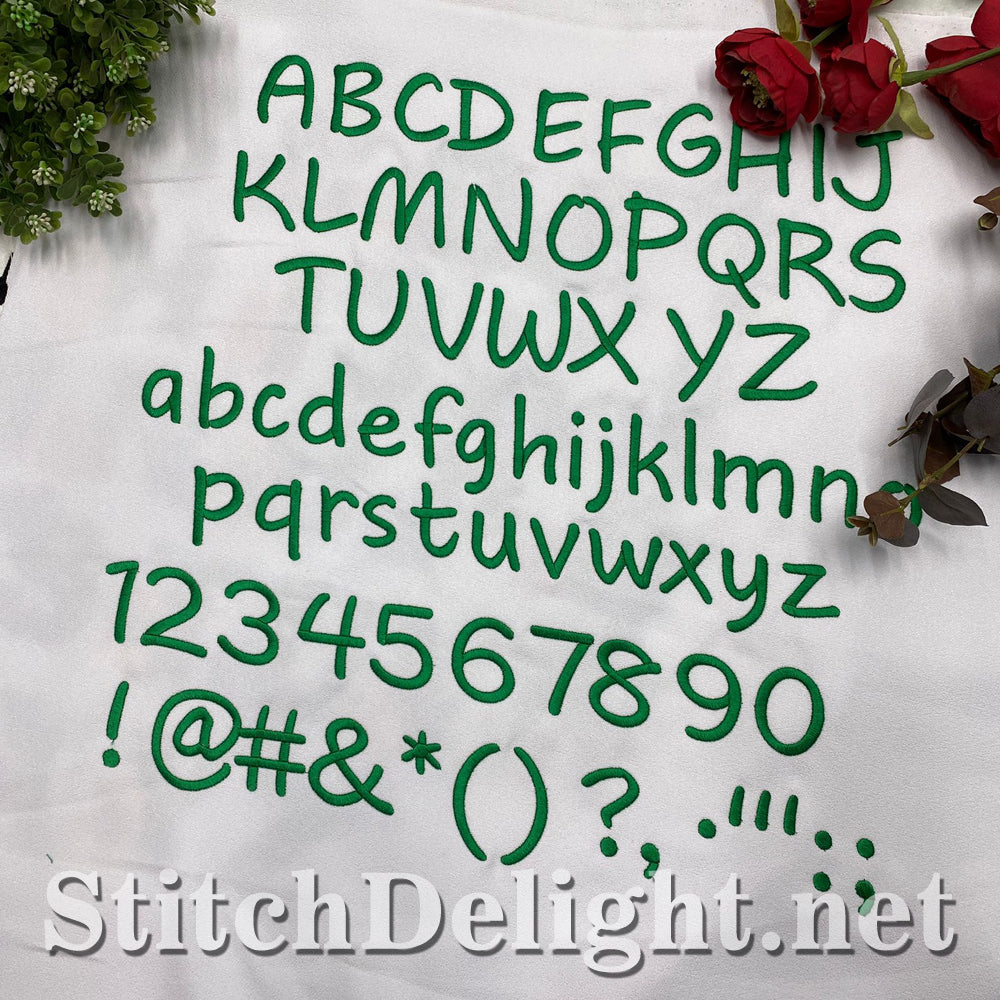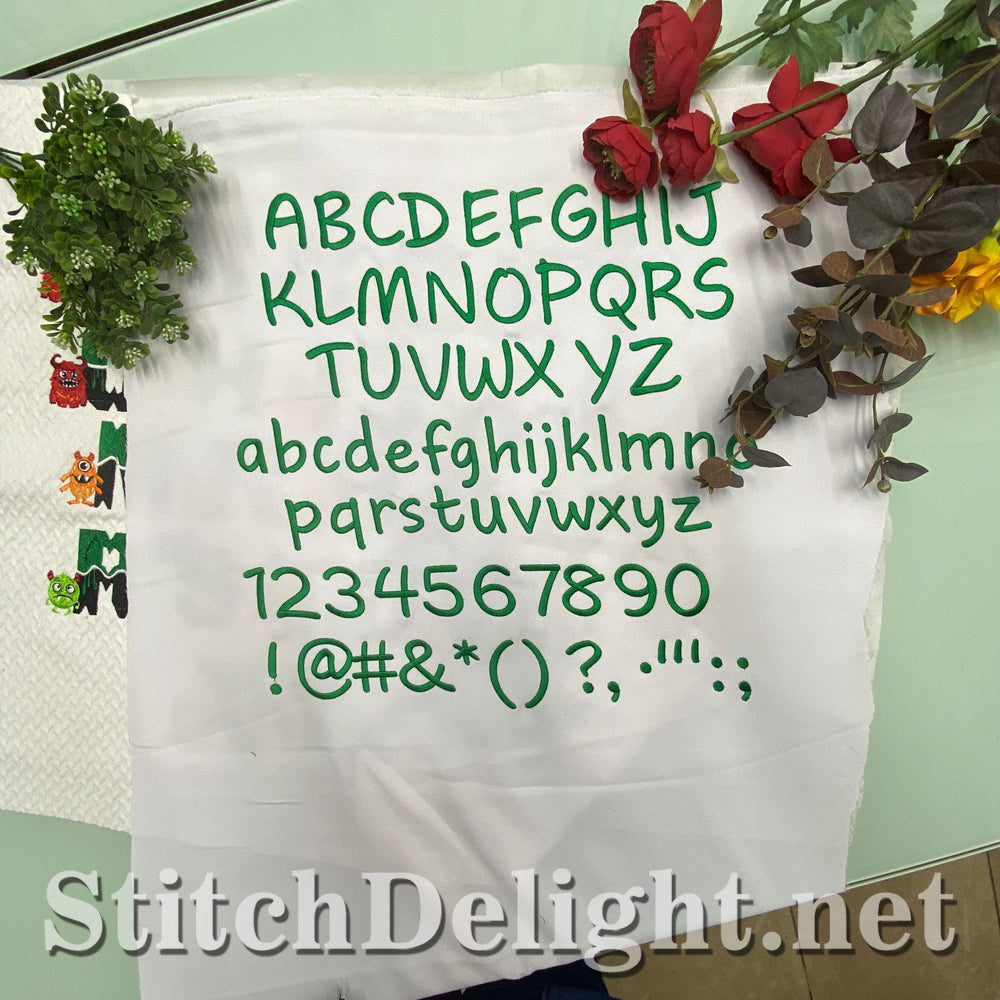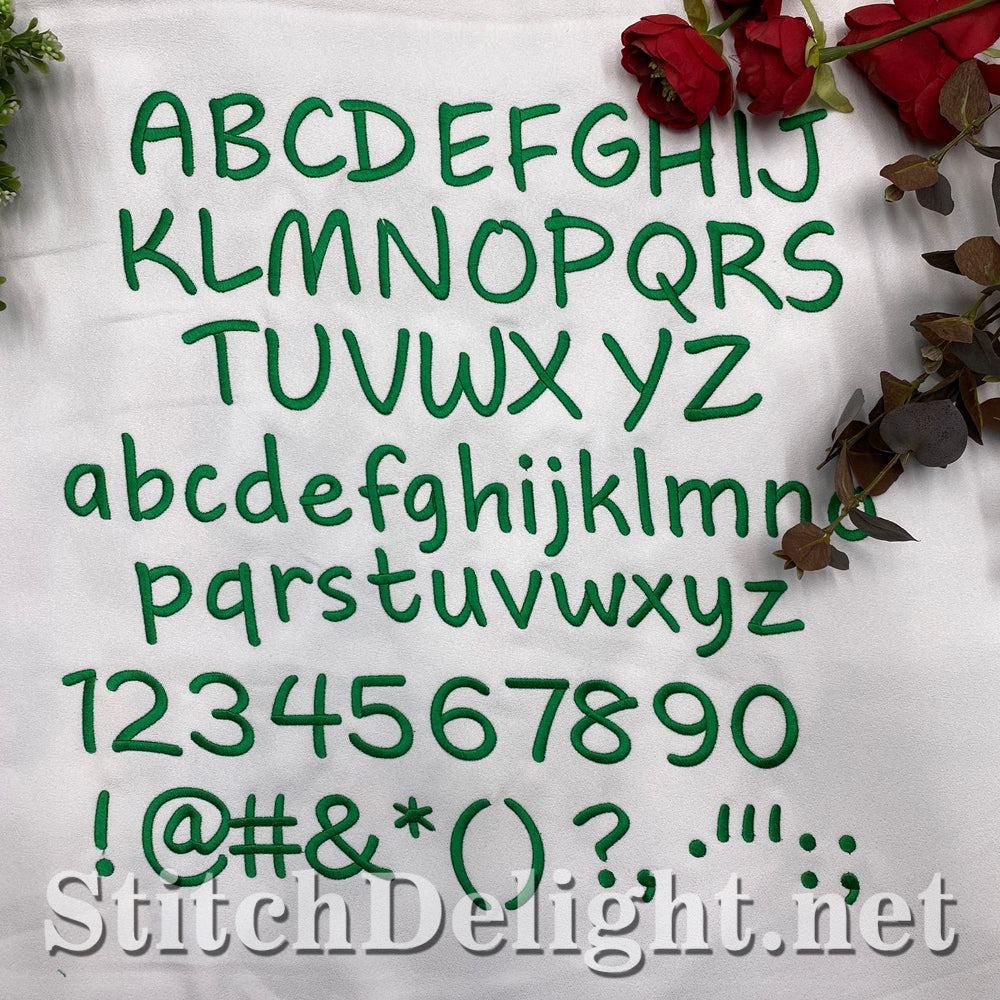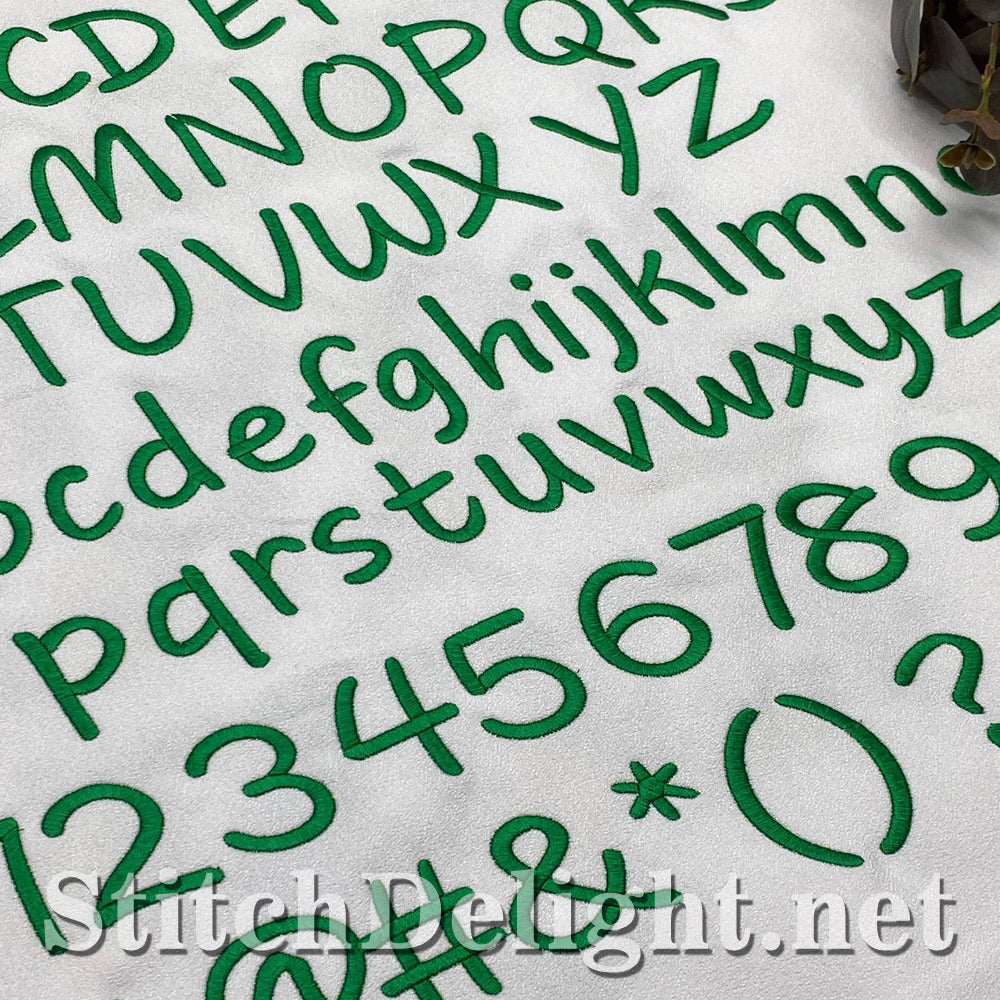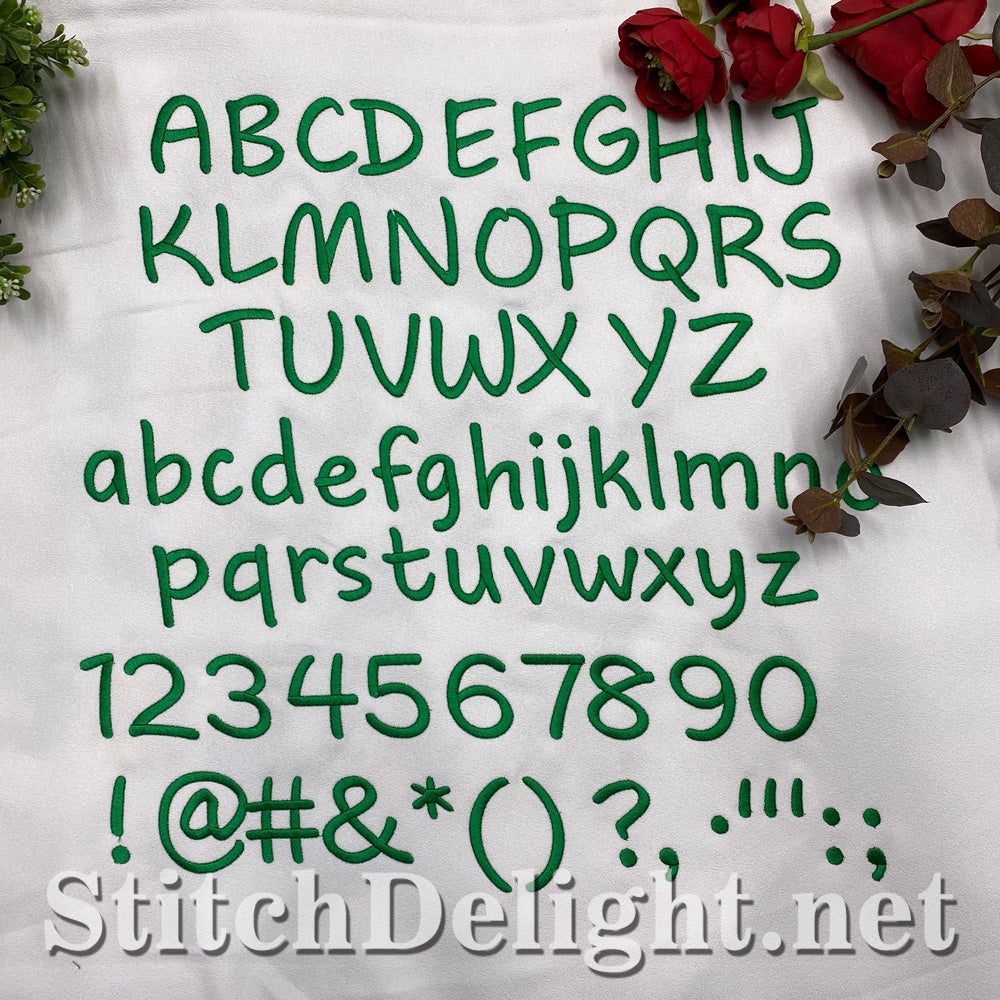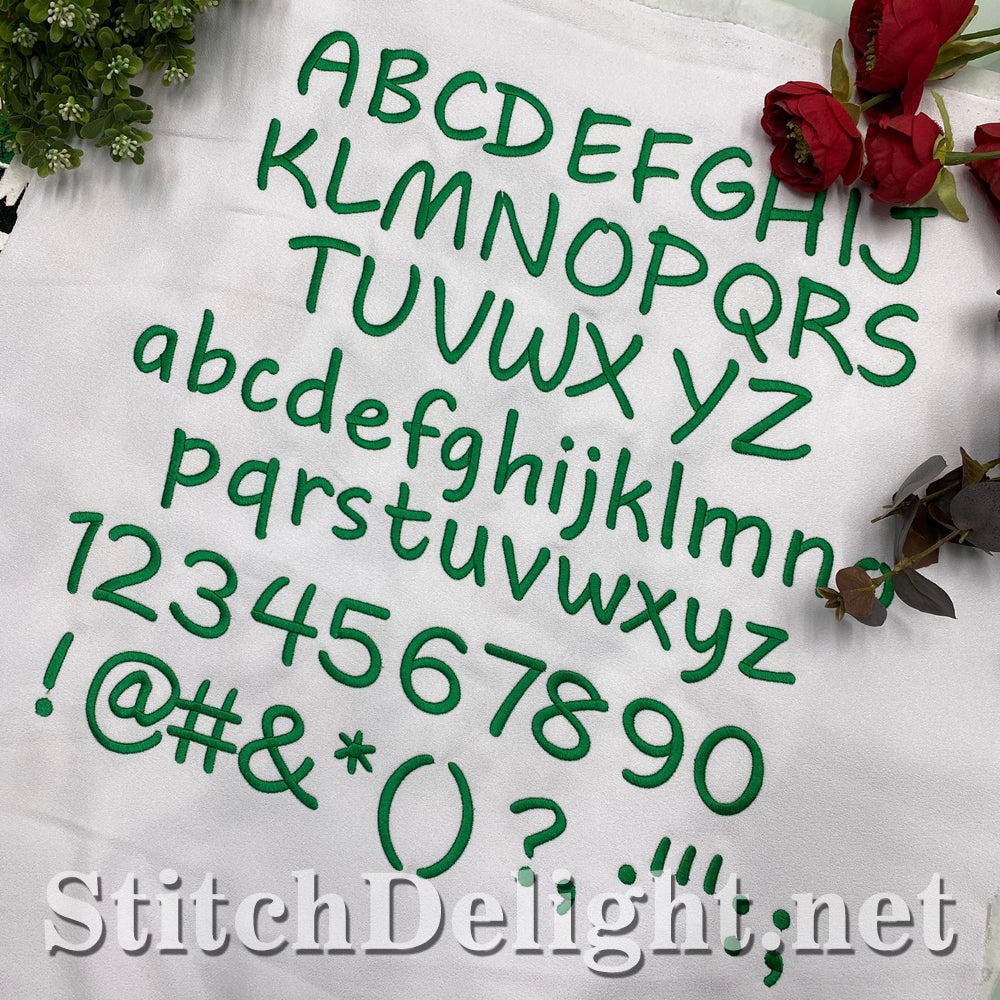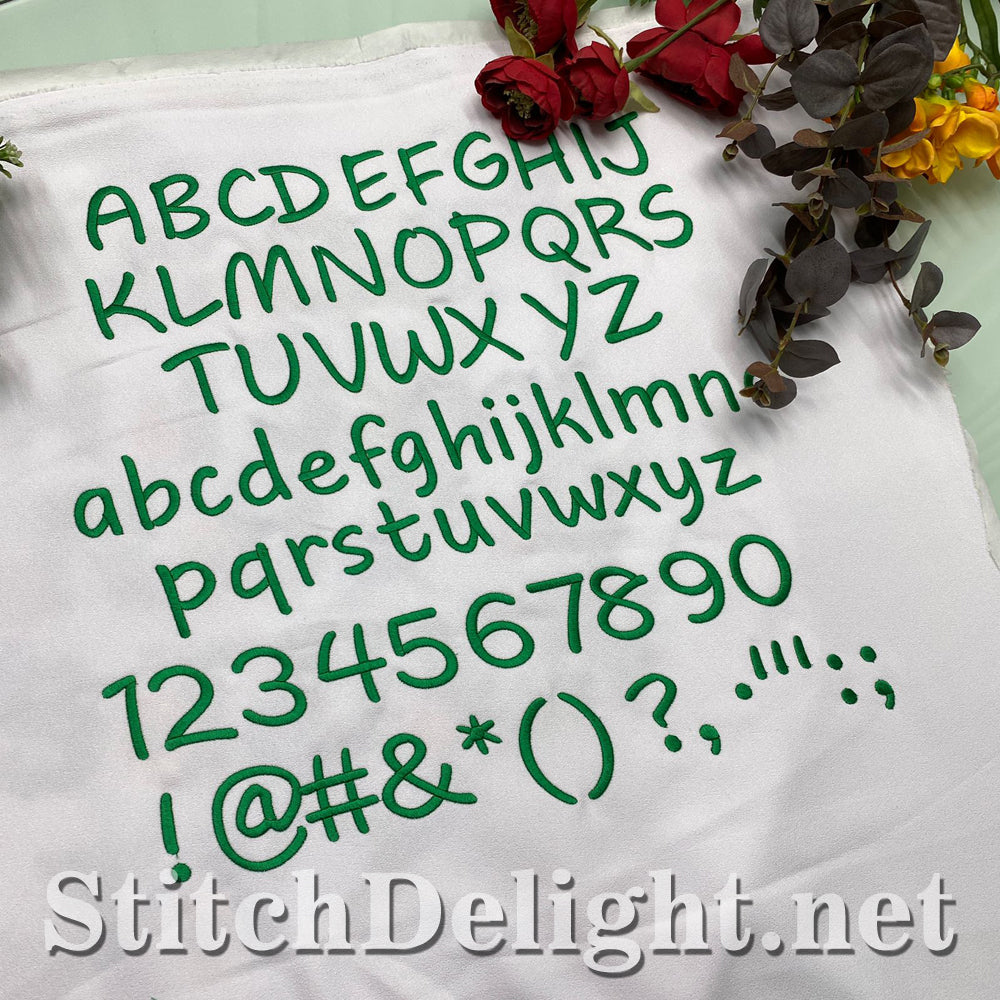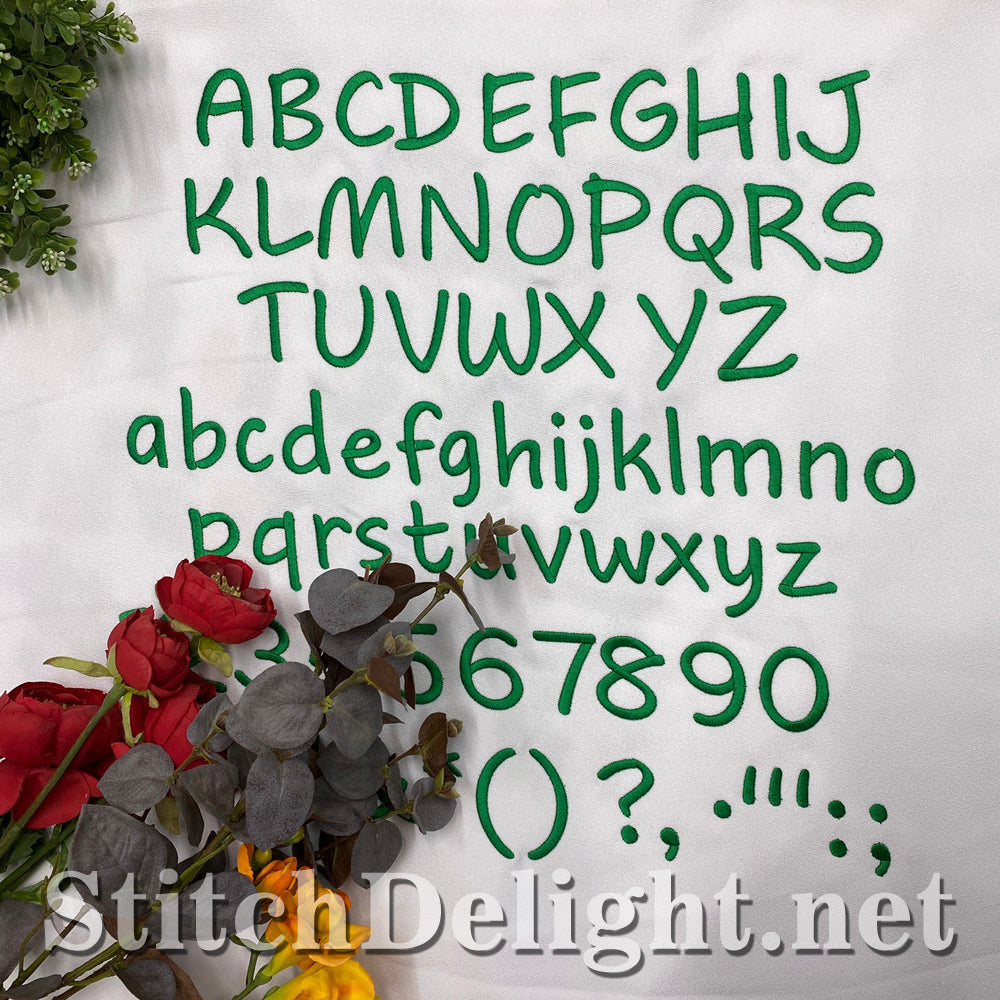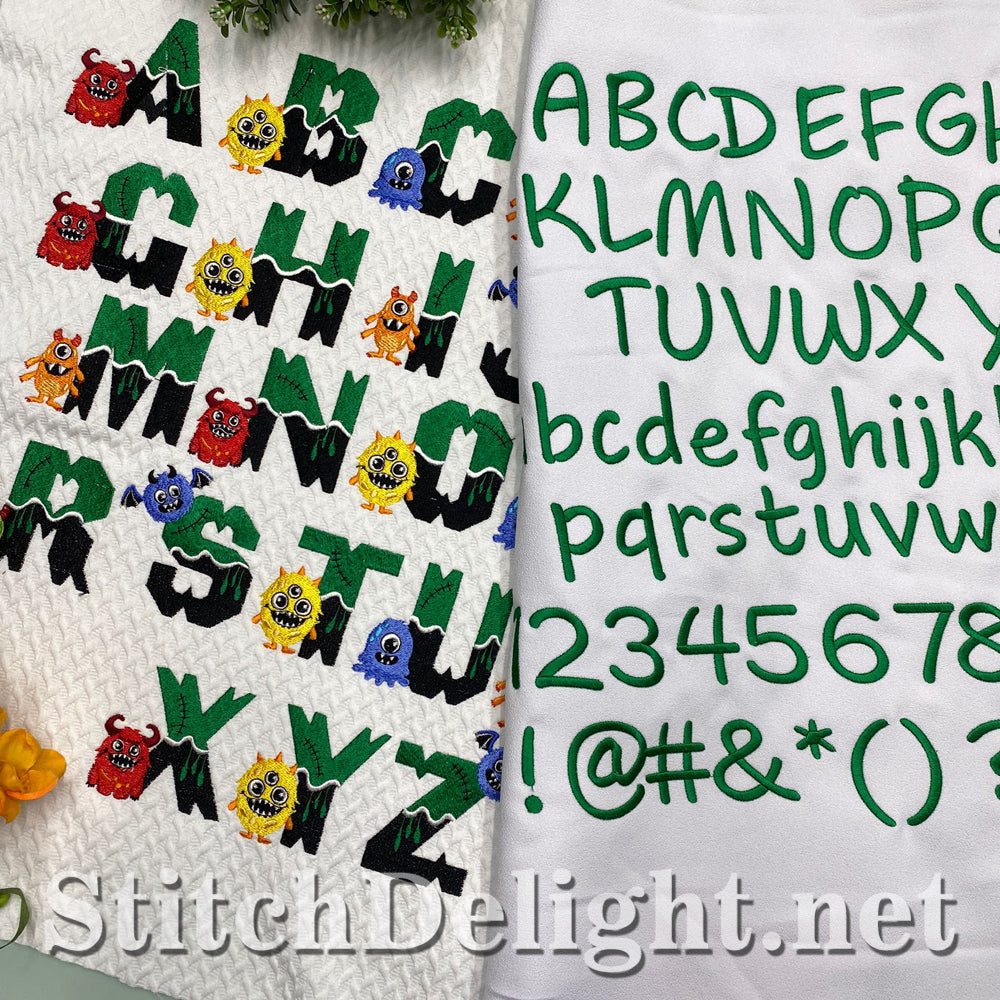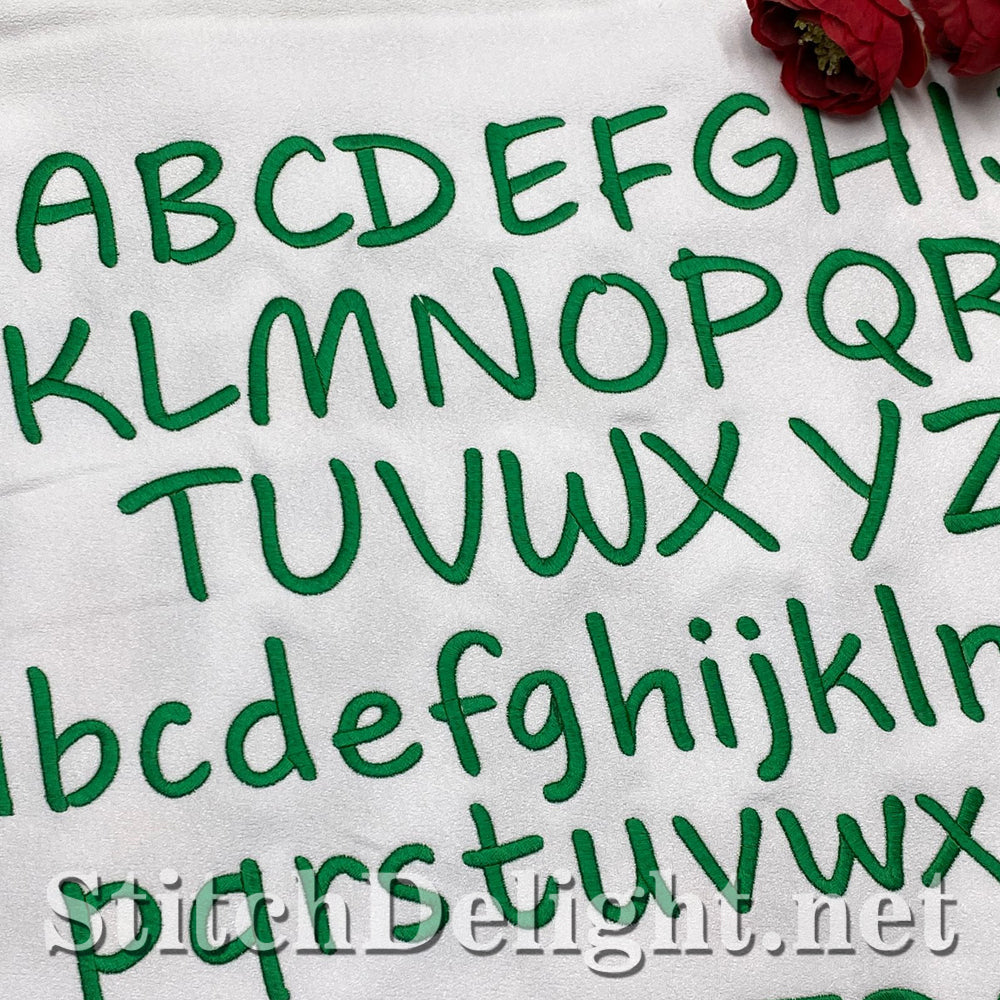
SDS1777 Kiddies Font
This is the matching font made specially for SDS1776 Monster Font, it has an average height of just 1.7" Making it ideal for smaller garments like kids clothing or Halloween Costumes!